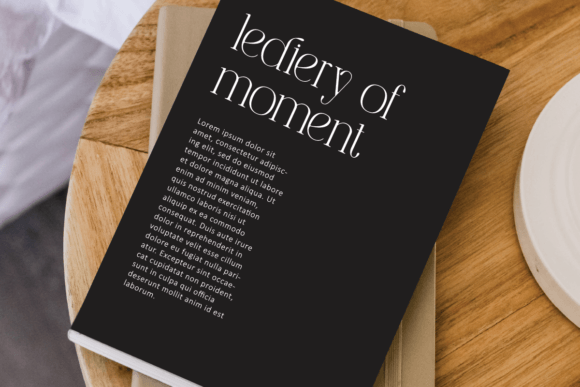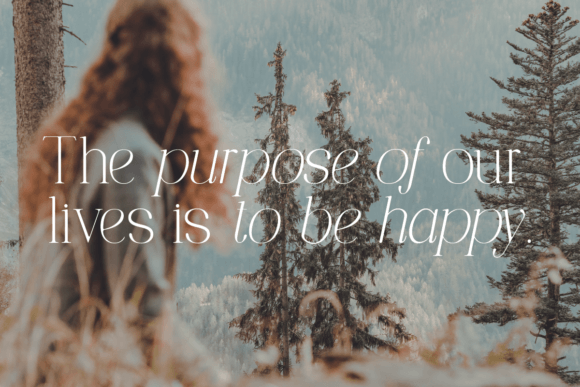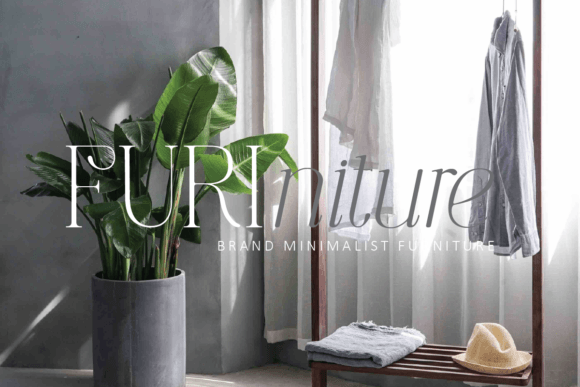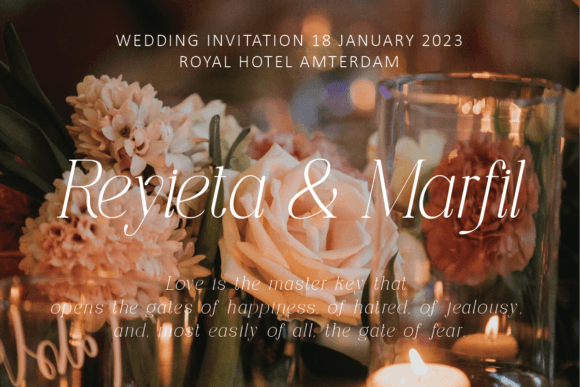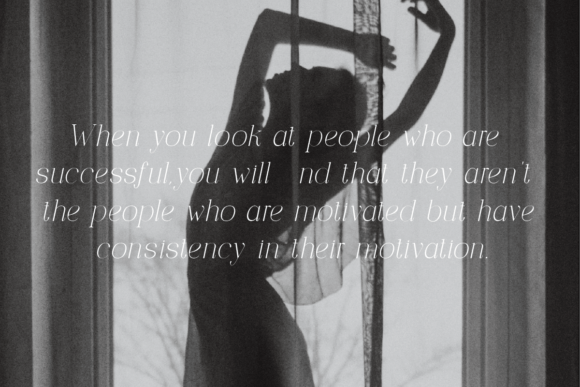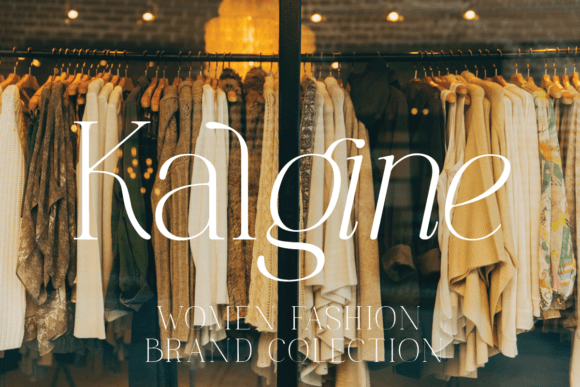
Earfline Font: Elevate Your Designs with a Modern Serif Typeface
In the world of typography, a great font can make all the difference in the success of a design project. For designers and crafters looking for a versatile and stylish typeface, Earfline Font is an excellent choice. This modern serif font offers a wide range of features that make it perfect for various applications, from editorial projects to logo design and product packaging.
What Makes Earfline Font Stand Out?
Earfline Font is a modern serif typeface that boasts beautiful alternatives, special glyphs, ornaments, and multilingual support. Its versatility makes it suitable for use in both large and small sizes, ensuring that your designs look great regardless of the context. Whether you’re working on a magazine header, clothing branding, or product packaging, Earfline Font is an excellent choice.
Key Features of Earfline Font
- Modern Serif Typeface: Earfline Font features a sleek and contemporary serif design that’s perfect for modern designs.
- Beautiful Alternatives: The font comes with beautiful alternative glyphs that allow you to experiment with different styles and variations.
- Special Glyphs and Ornaments: Earfline Font includes a range of special glyphs and ornaments that can add a touch of elegance to your designs.
- Multilingual Support: The font supports multiple languages, making it a great choice for global brands and designers.
- PUA Encoded: Earfline Font is PUA encoded, which means you can easily access all the glyphs and swashes with ease.
Use Cases for Earfline Font
Earfline Font is a versatile typeface that can be used in a variety of design projects. Here are some examples:
- Editorial Projects: Use Earfline Font to create stunning magazine headers, article titles, and body text.
- Logo Design: The font’s modern serif design makes it perfect for logo design, especially for brands that want to convey a sense of sophistication and elegance.
- Clothing Branding: Earfline Font is a great choice for clothing brands that want to create stylish and eye-catching labels and packaging.
- Product Packaging: The font’s versatility makes it suitable for use on product packaging, from food labels to cosmetics packaging.
- Magazine Headers: Use Earfline Font to create stunning magazine headers that grab attention and set the tone for your publication.
- Text Overlay: The font’s stylish design makes it perfect for use as a text overlay on background images, adding a touch of elegance to your designs.
Why Choose Earfline Font?
With so many fonts available, why choose Earfline Font? Here are a few reasons:
- Unique Design: Earfline Font features a unique and stylish design that’s sure to stand out in any design project.
- Versatility: The font’s versatility makes it suitable for use in a wide range of design projects, from editorial projects to logo design and product packaging.
- Easy to Use: Earfline Font is PUA encoded, making it easy to access all the glyphs and swashes.
- Multilingual Support: The font’s multilingual support makes it a great choice for global brands and designers.
Earfline Font is a modern serif typeface that offers a wide range of features and use cases. Its versatility, stylish design, and multilingual support make it an excellent choice for designers and crafters looking for a high-quality font. Whether you’re working on an editorial project, logo design, or product packaging, Earfline Font is sure to elevate your designs to the next level.